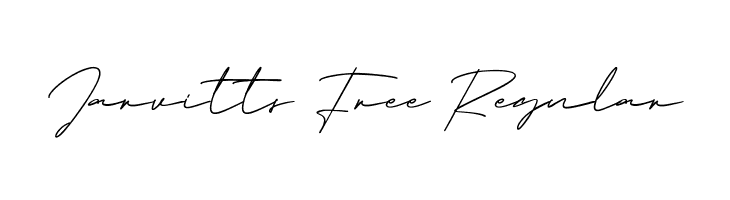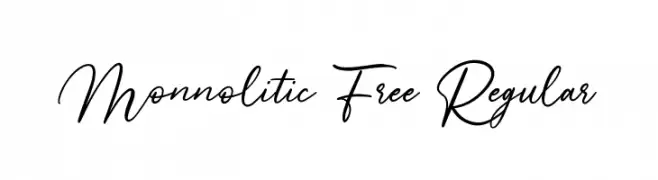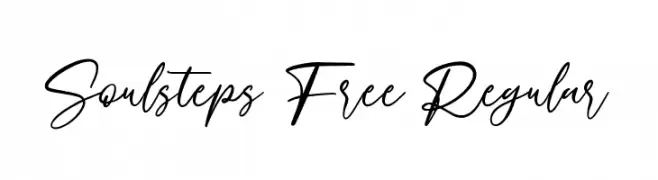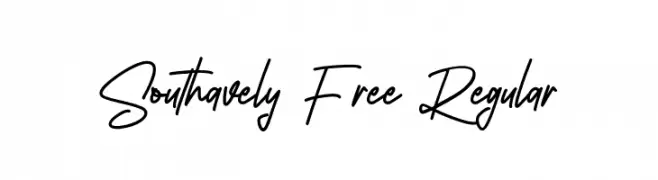
A fluid, modern handwritten font with elegant, thin strokes.
A lively and elegant script font with fluid, cursive strokes and graceful curves.
A sophisticated script font with flowing, interconnected letters and a handwritten feel.
A playful and elegant script font with fluid strokes and decorative elements.
A fluid and elegant script font with smooth, flowing lines.
A bold, playful handwritten font with a modern, dynamic style.
A flowing, cursive font with elegant, sweeping strokes and a handwritten appearance.
A flowing, cursive script font with elegant, interconnected strokes.
A dynamic and expressive handwritten font with fluid strokes and a natural flow.
A flowing, cursive font with elegant, connected characters and a sophisticated style.